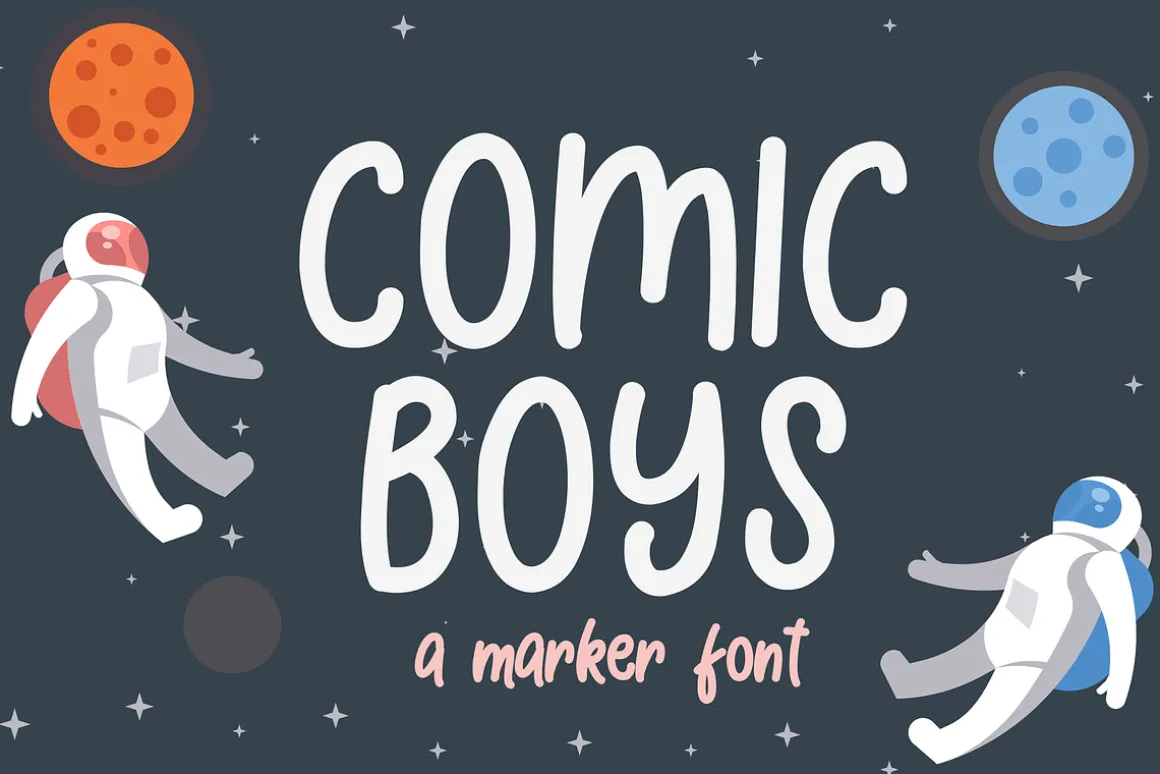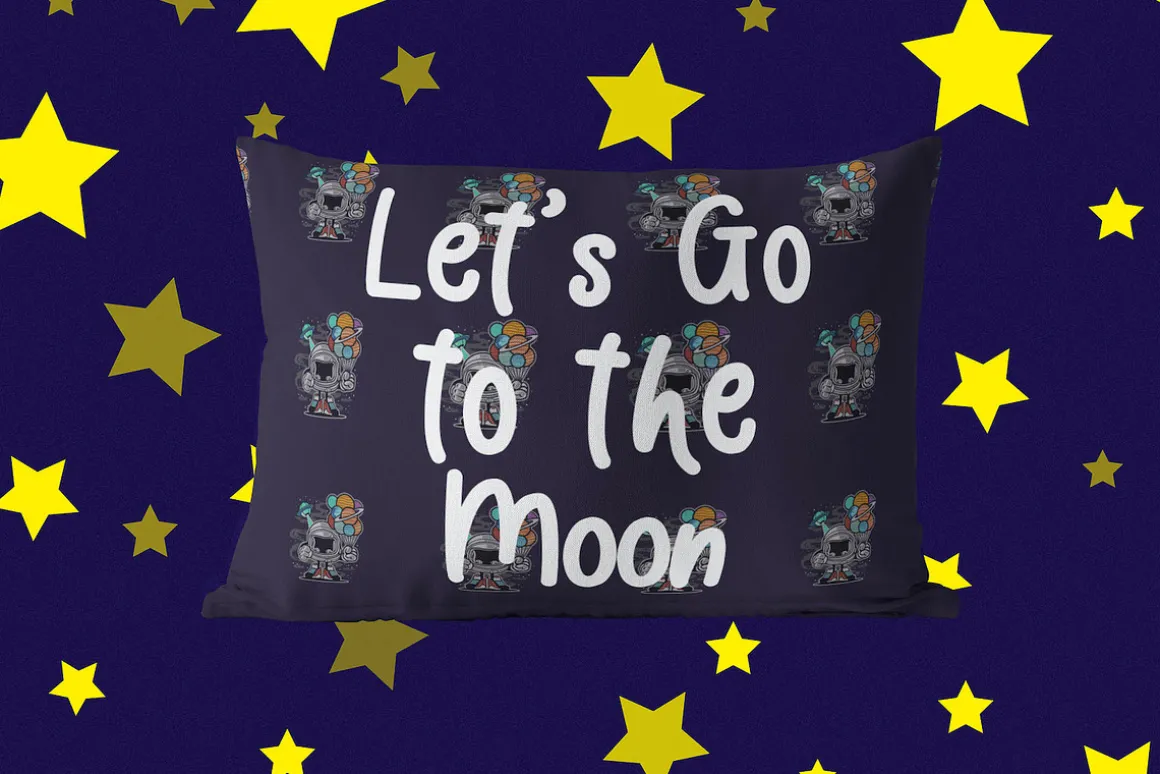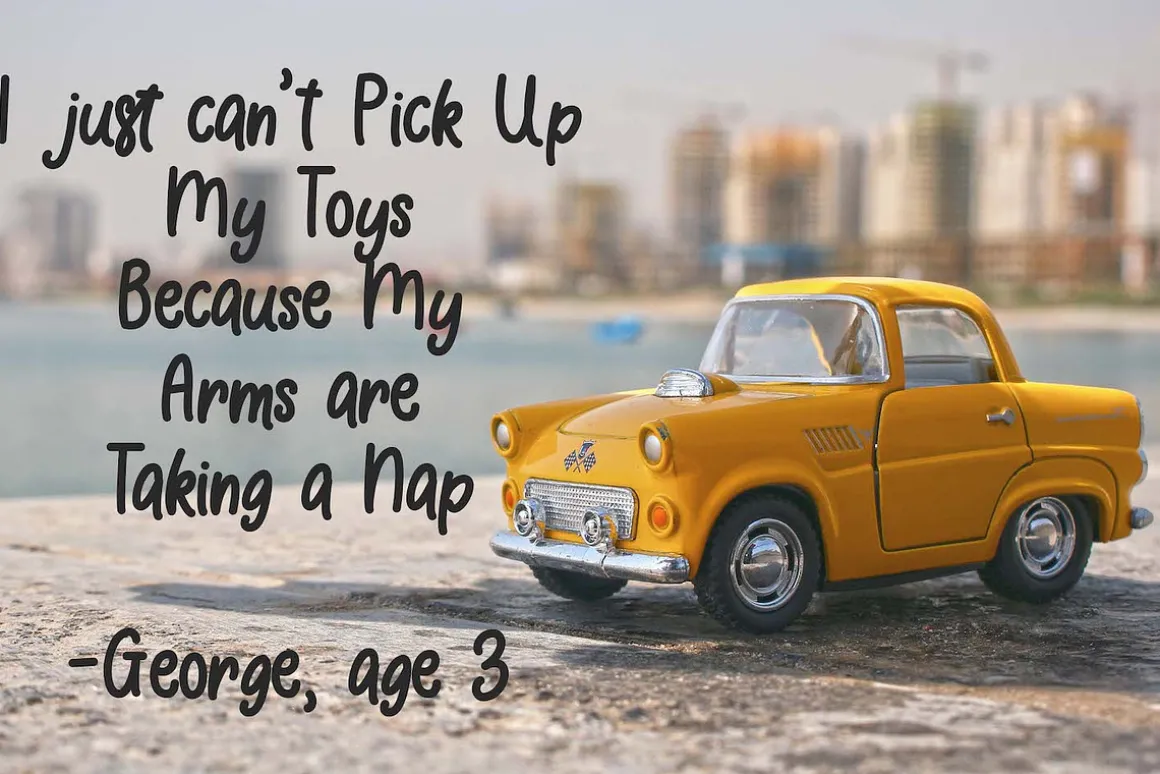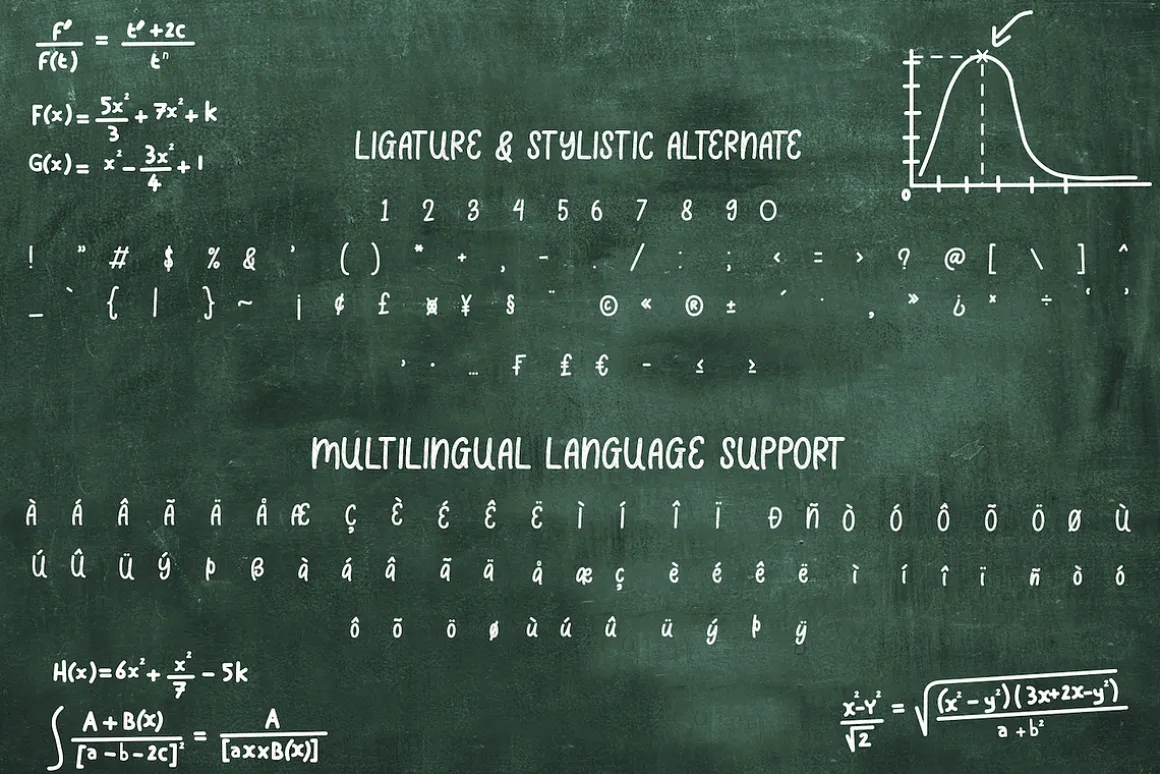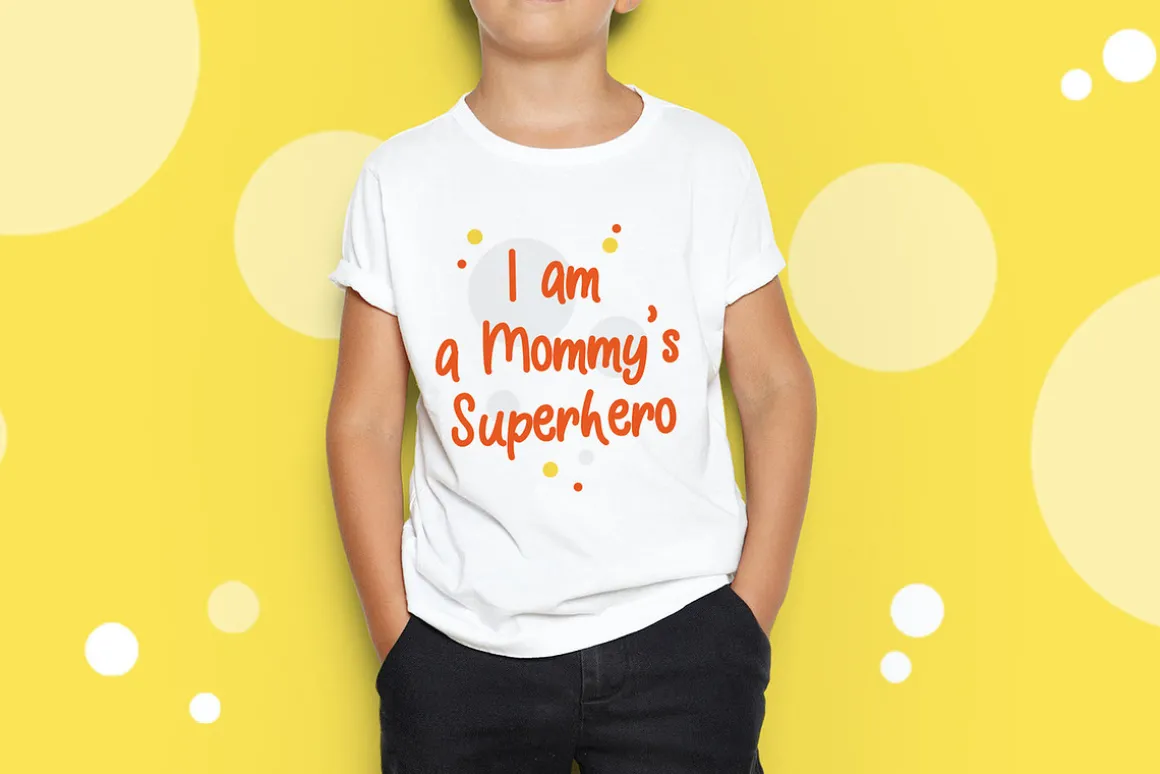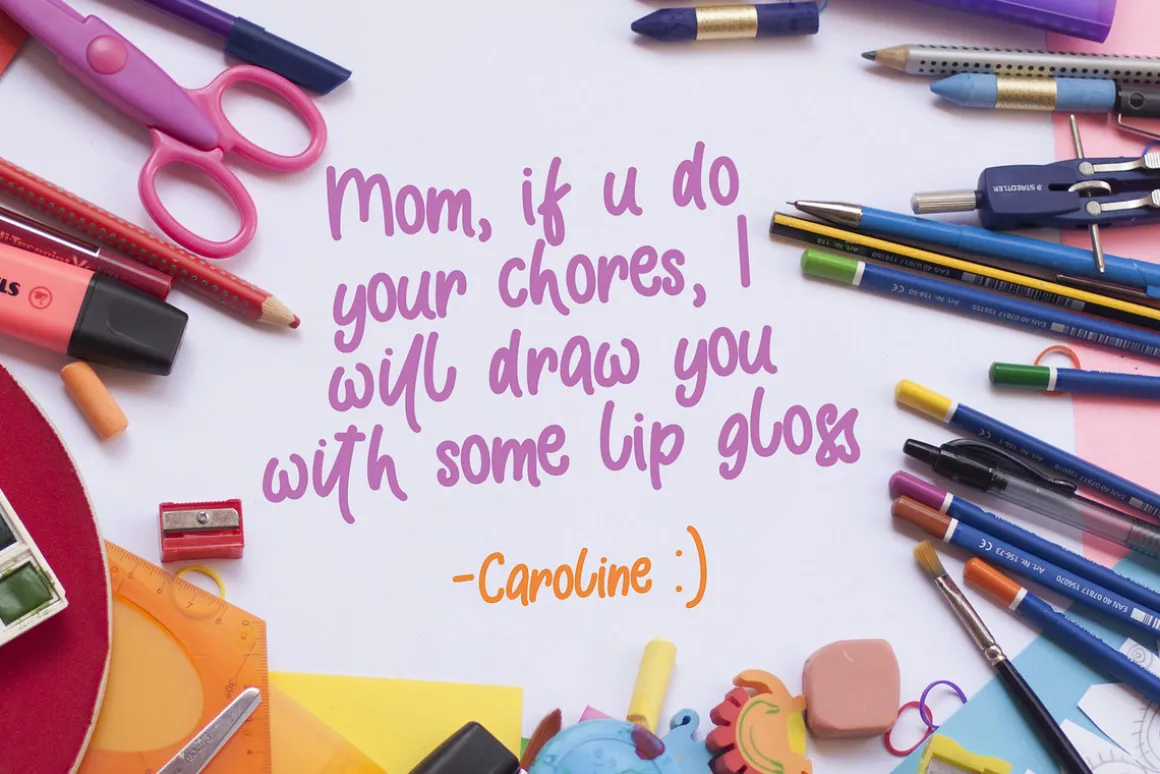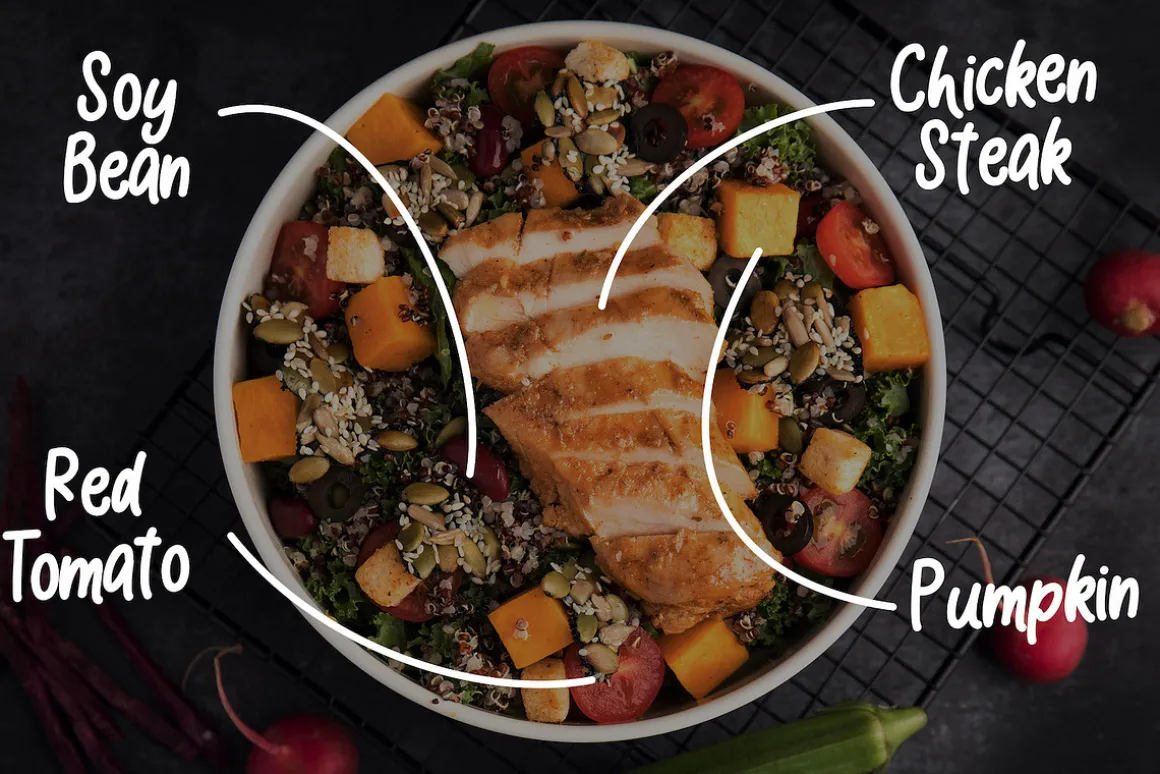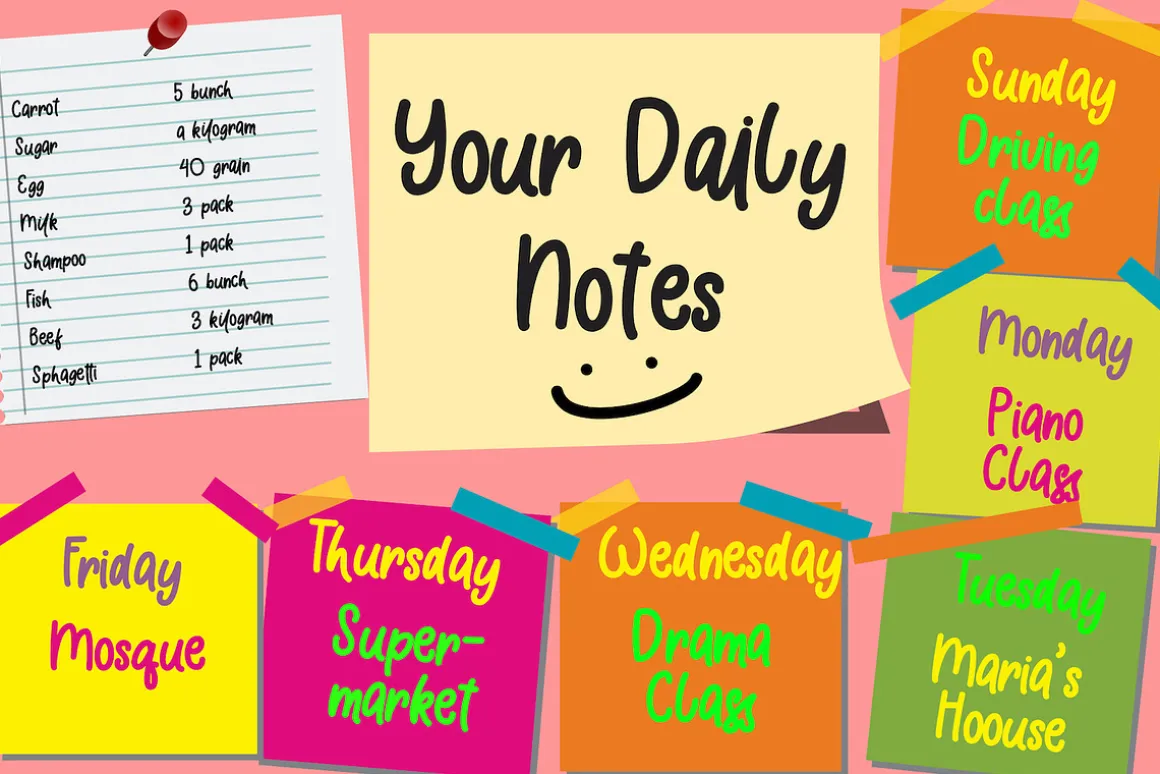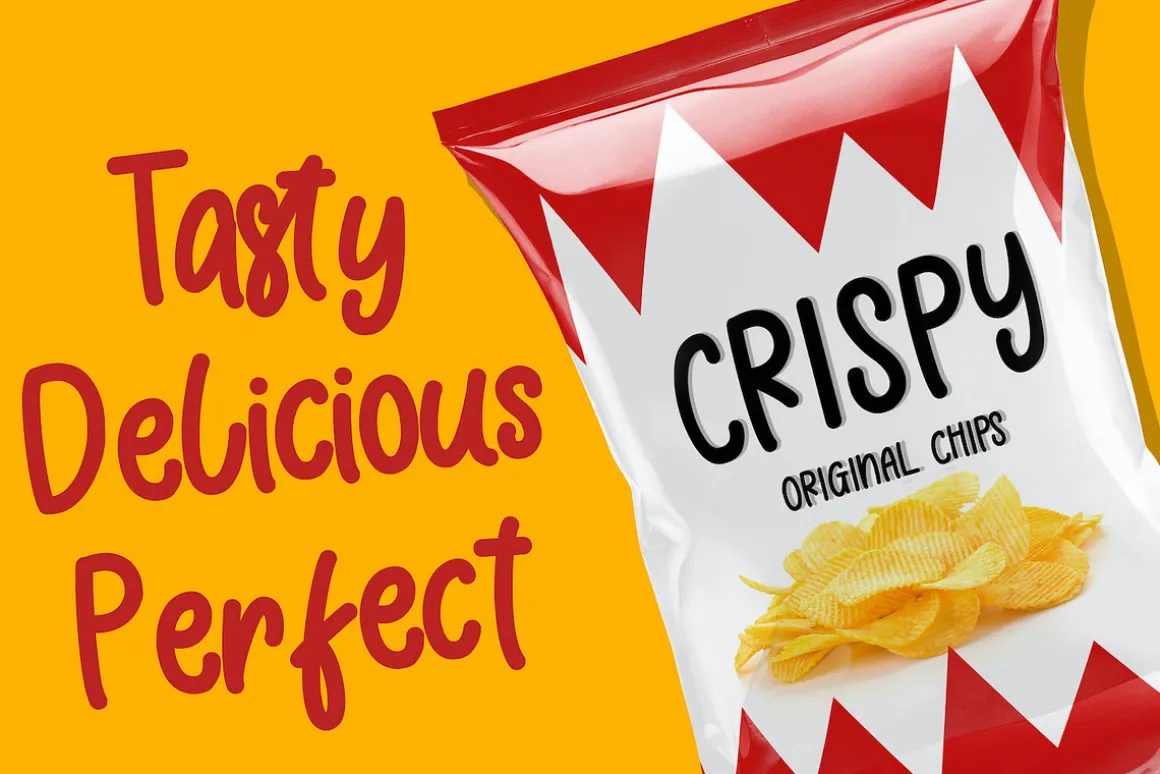
Introducing Comic Boys – Kids Bubble Font
Comic Boys is a playful font with bubble style. This font is specially crafted for children, Boys, Kindergarten, Birthday, Kid, Cartoon, and Comic purposes.
The Comic Boys font has a unique concept and fun style.
FEATURES
- Ligature
- Stylistic Alternates
- Uppercase and Lowercase letters
- Numbering and Punctuations
- Multilingual Support